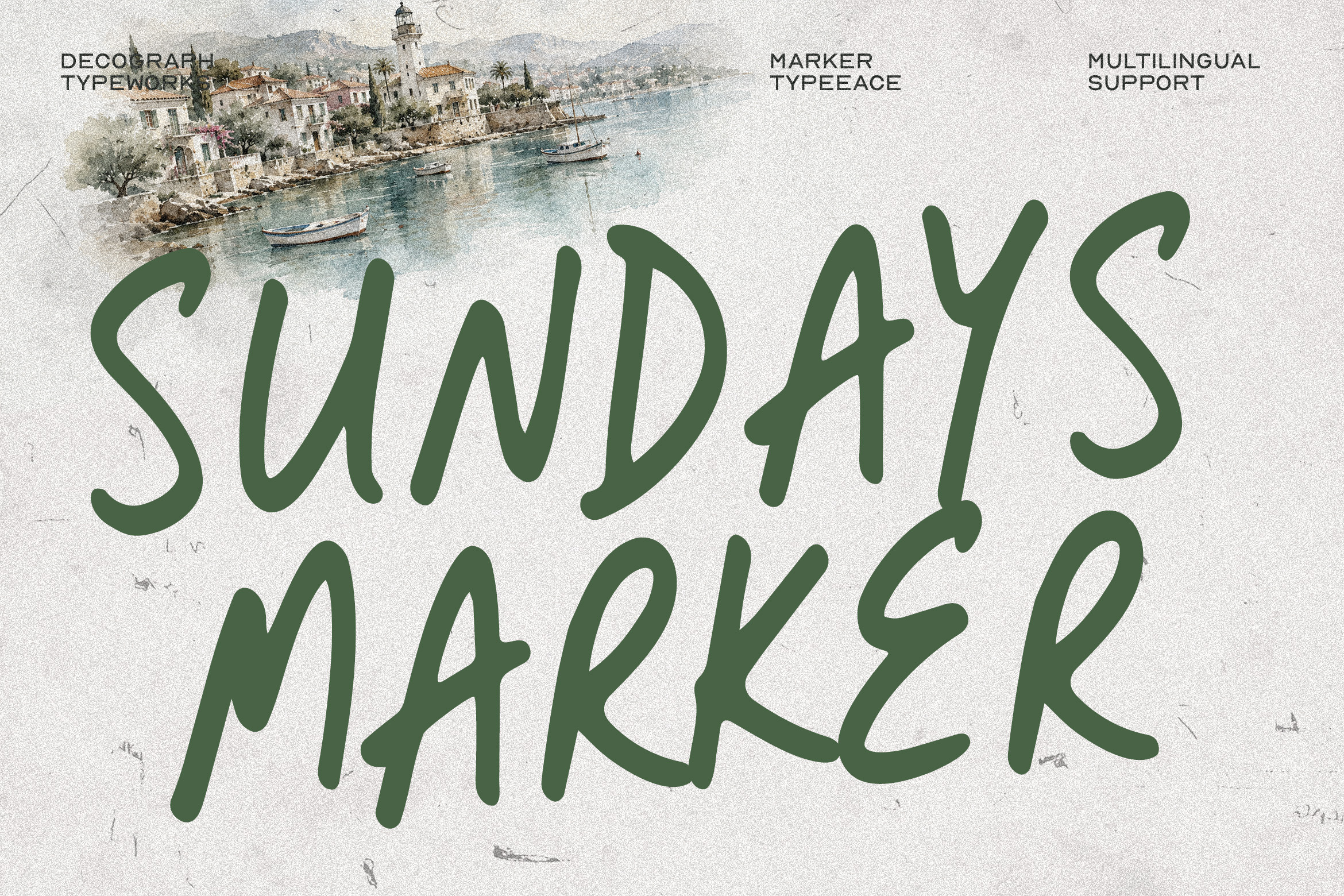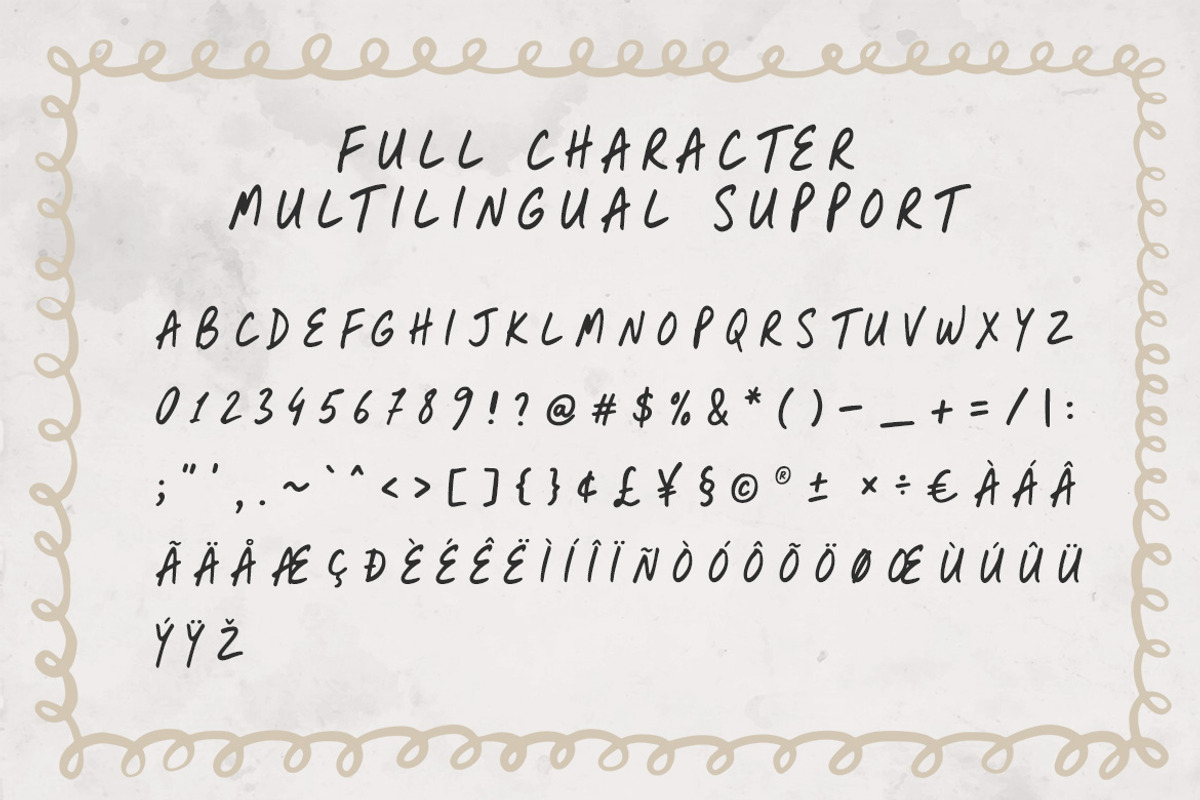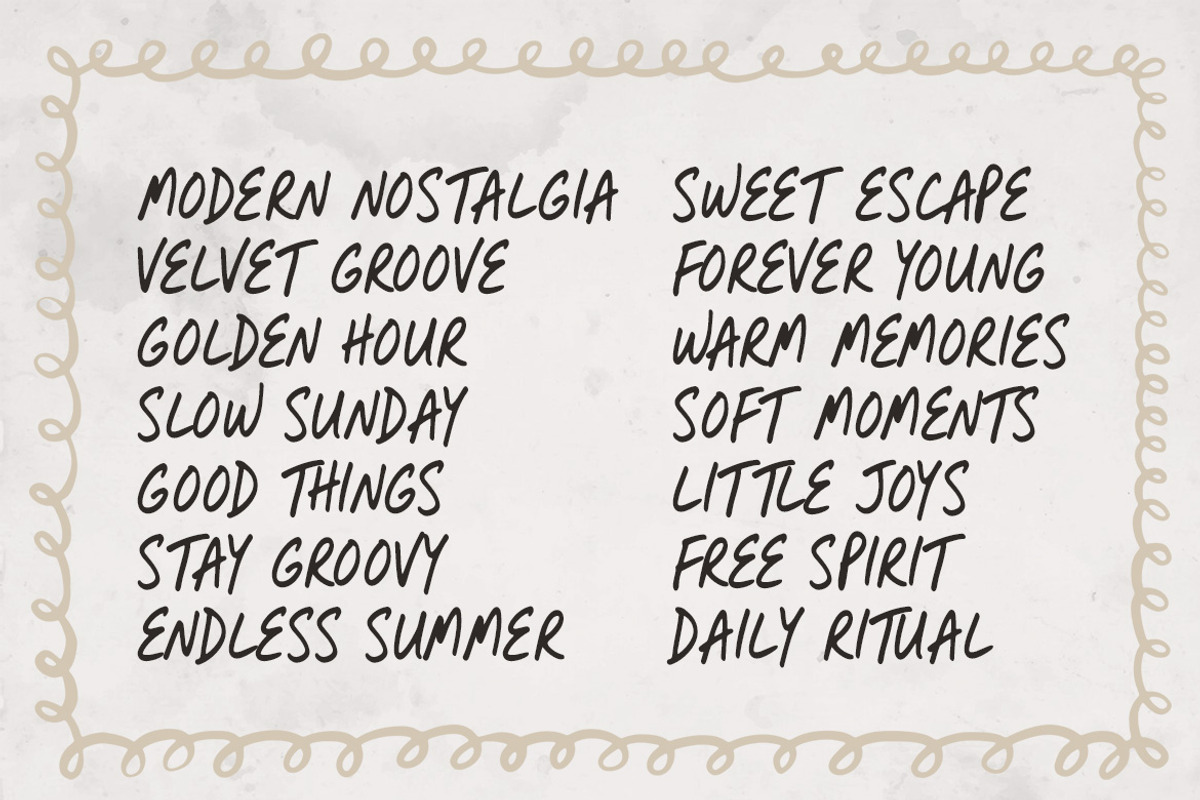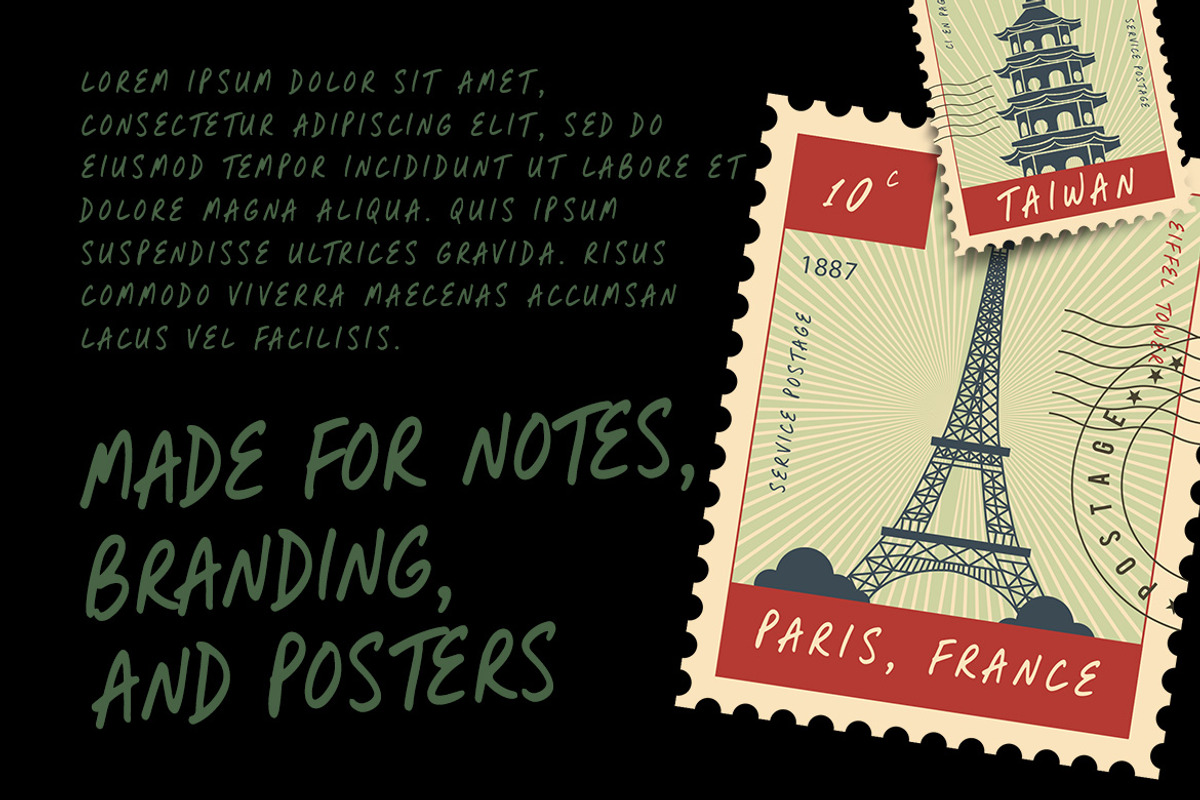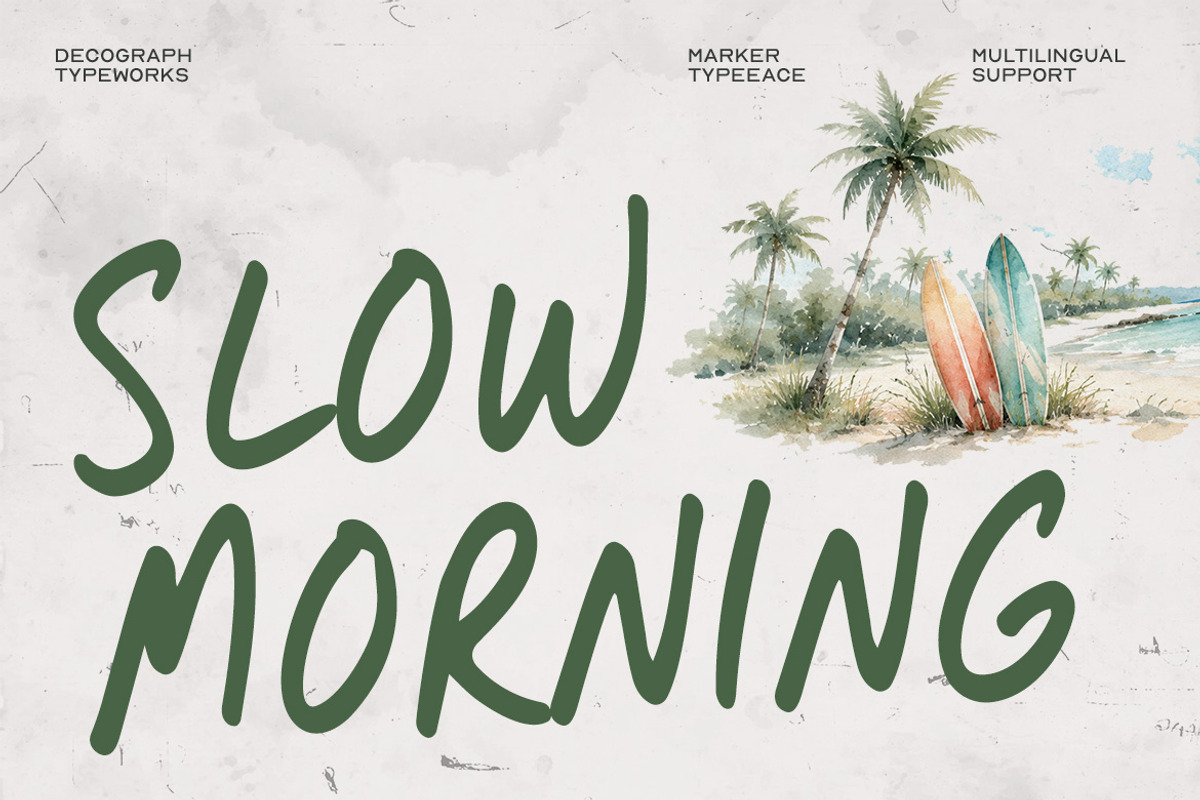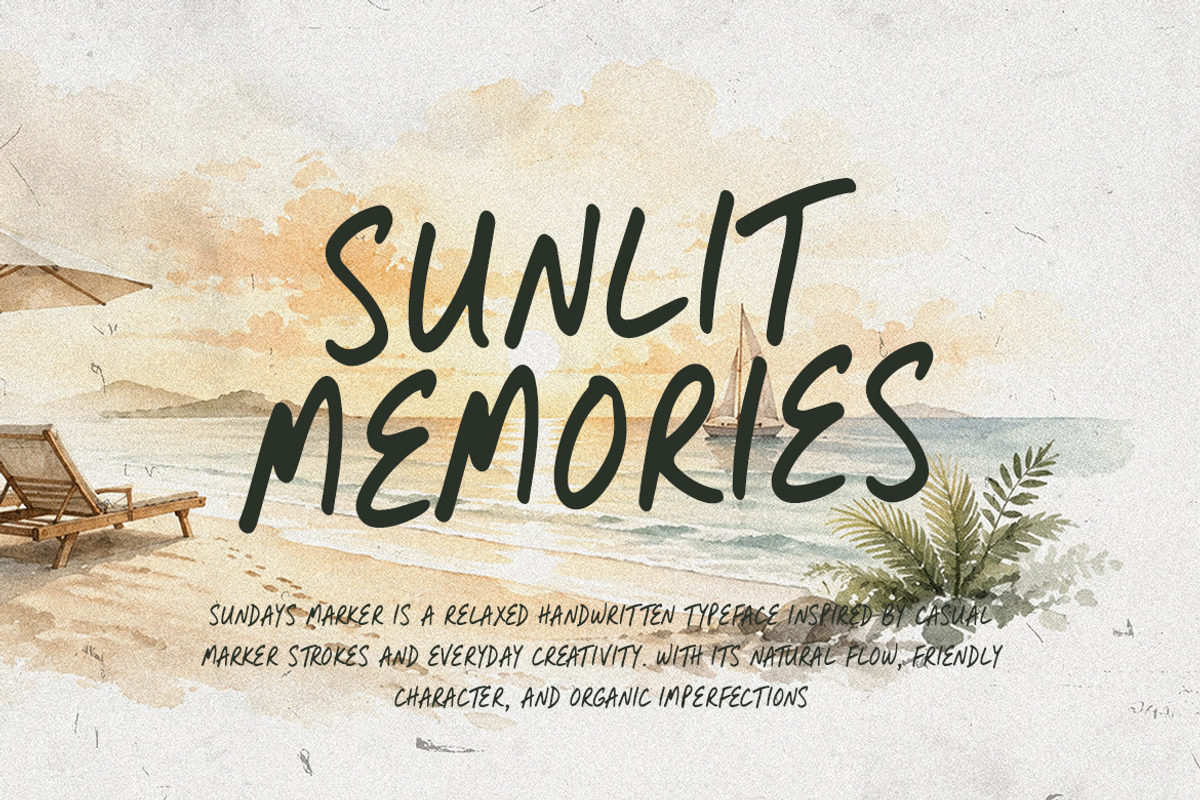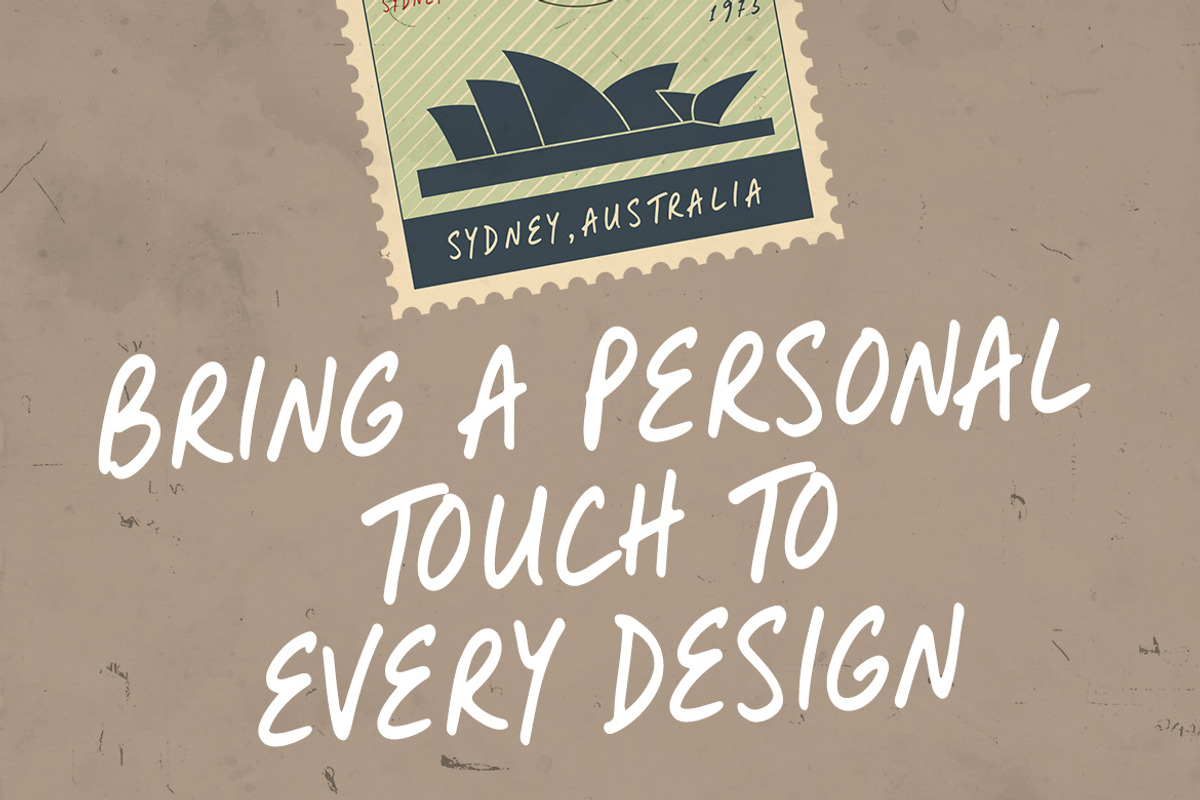
Sundays Marker – Handwritten Font
Sundays Marker is an expressive handwritten display typeface that combines loose marker strokes with naturally irregular letter construction, featuring fluid curves, varied proportions, and softly rounded terminals that create an authentic hand-drawn impression. Its tall forms and spontaneous rhythm give the lettering a confident presence while maintaining a relaxed and approachable personality. Designed for branding, posters, packaging, editorial headlines, lifestyle graphics, merchandise, and social media, this typeface works especially well when a design needs a personal handmade touch—delivering a visual character that feels casual, organic, expressive, and naturally contemporary.
Smooth Kerning